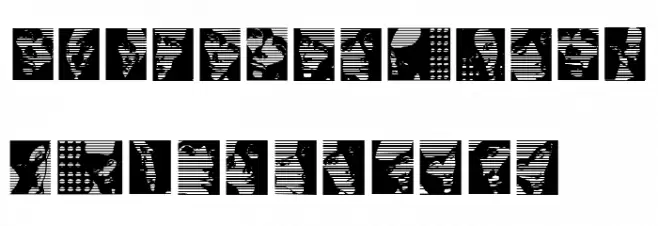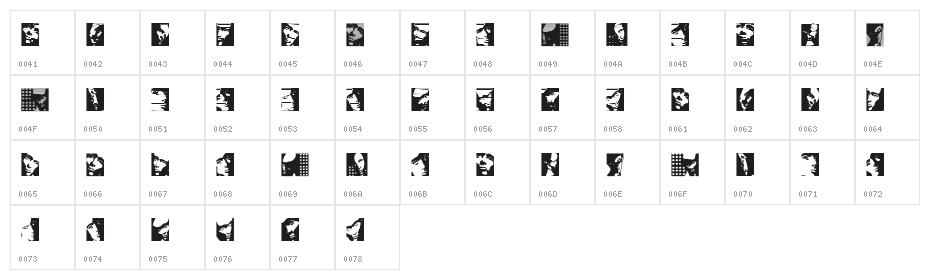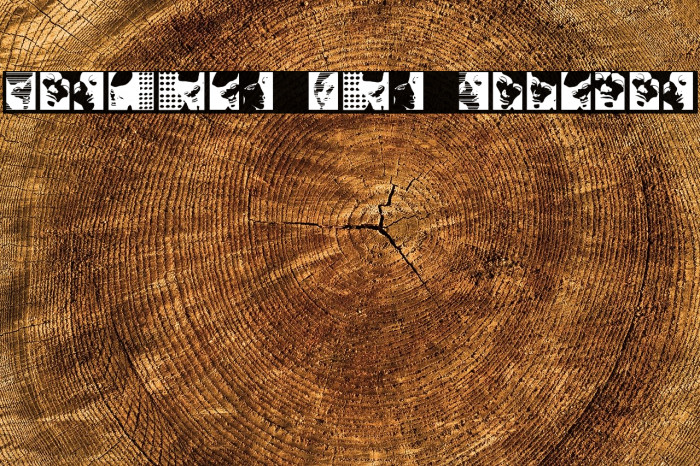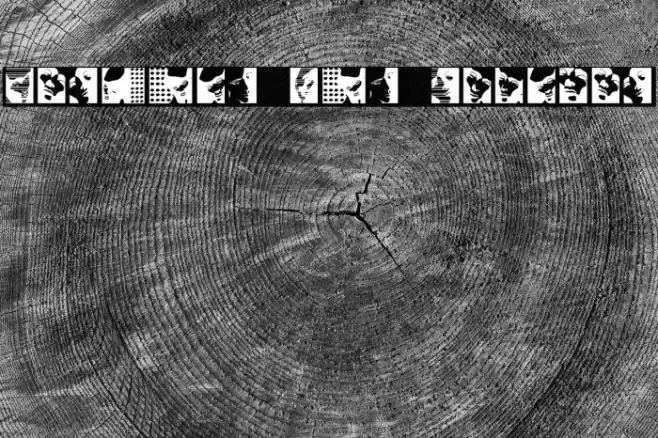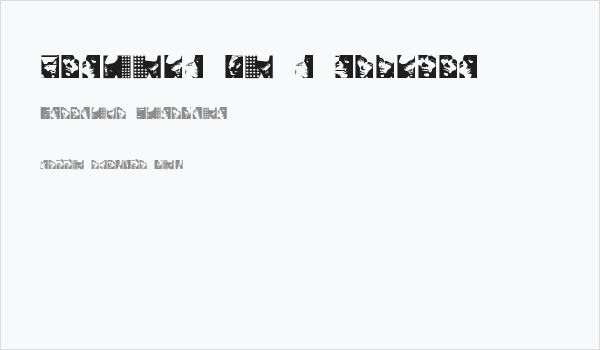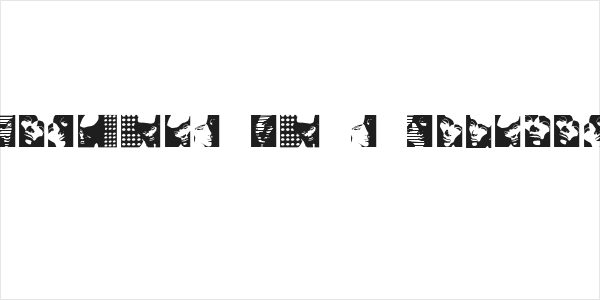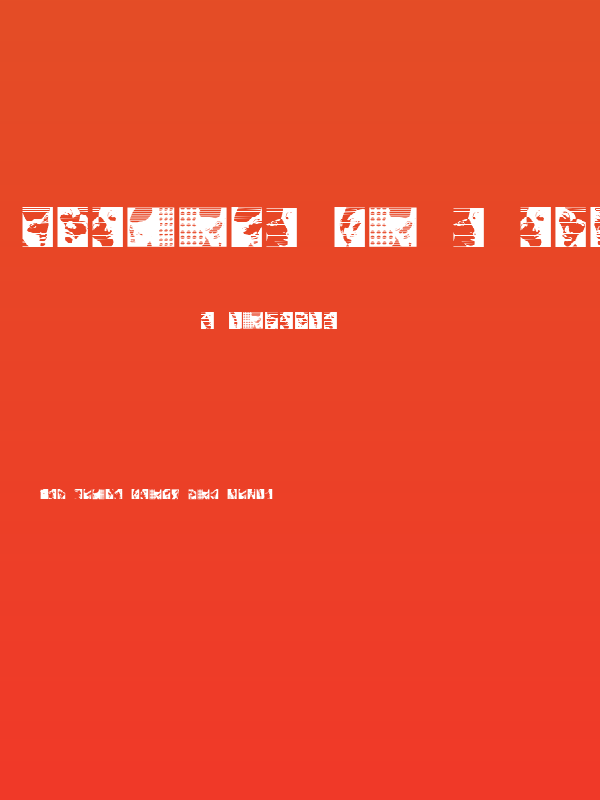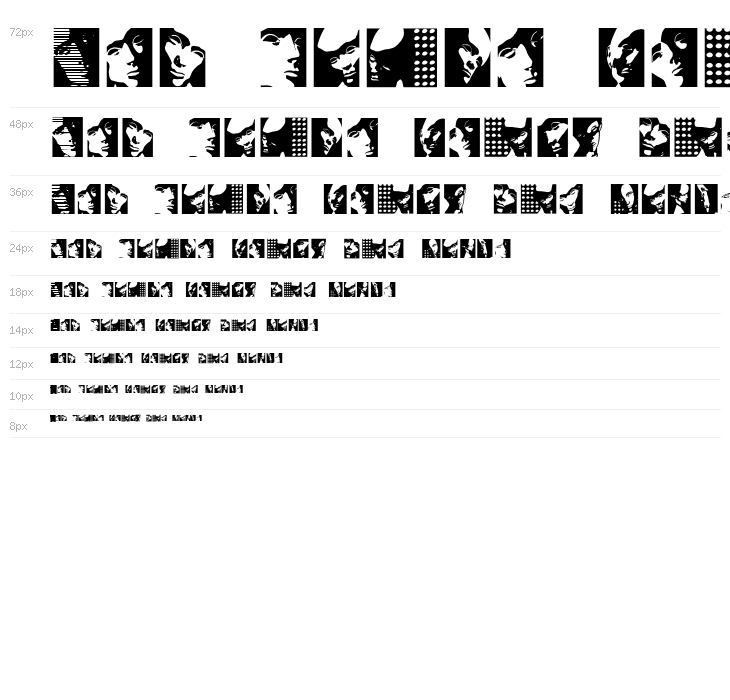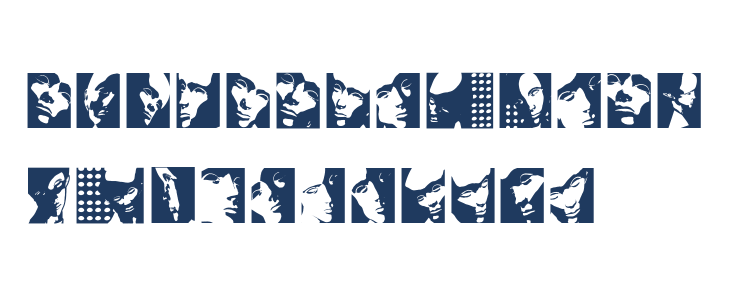
Various Boys Regular Font
Various Boys Regular Description
This font is a unique and artistic display typeface that incorporates stylized images of faces within each character. The design is highly decorative, with each letter and number featuring intricate patterns and visual elements that resemble portraits. The characters are bold and striking, making them stand out in any design. The font's style is reminiscent of pop art, with a modern twist that combines graphic elements with typography. The use of high contrast between black and white enhances the visual impact, making it suitable for eye-catching designs.
| Overall Style | Modern, Artistic, Pop Art |
| Use Case | Headlines, Posters, Artistic Projects |
| Proposed Projects | Ideal for artistic posters, album covers, fashion branding, and creative advertising campaigns. |